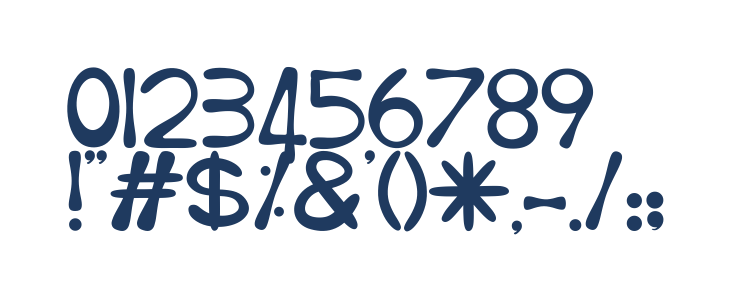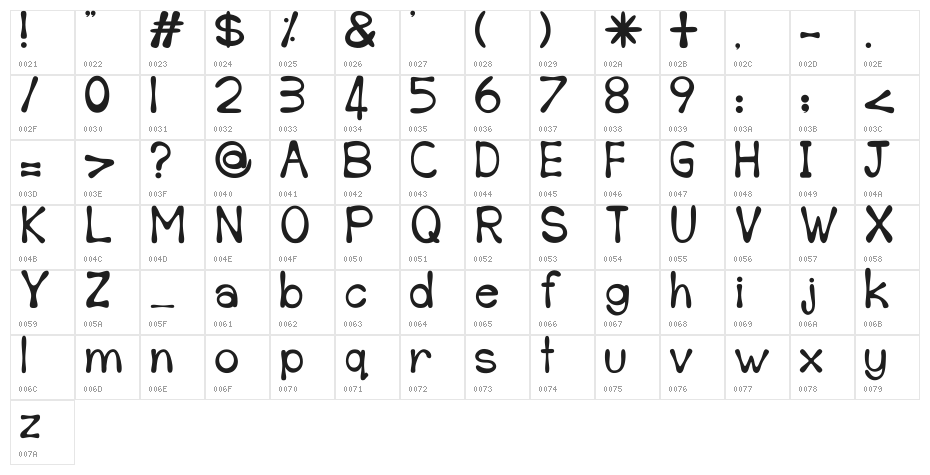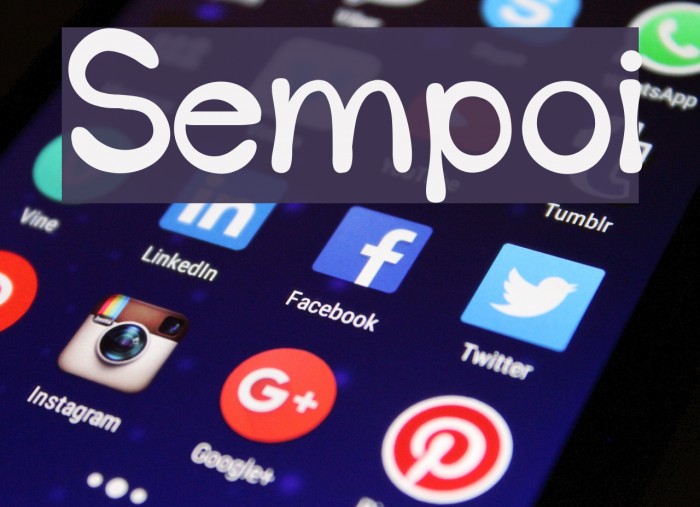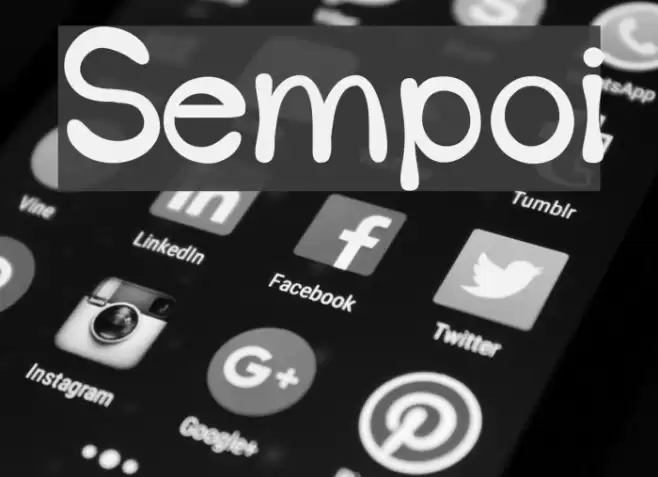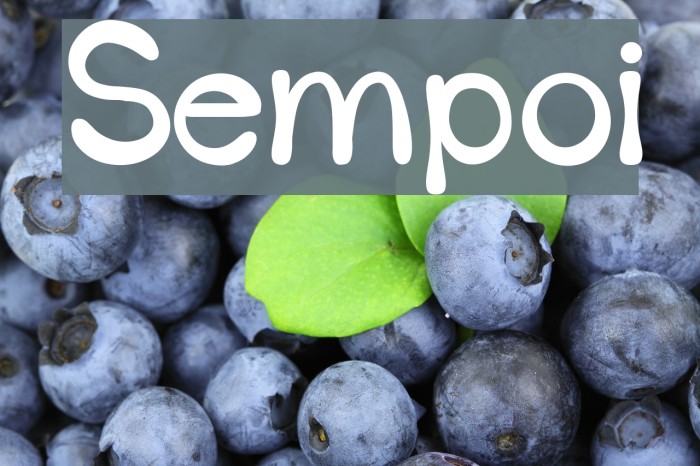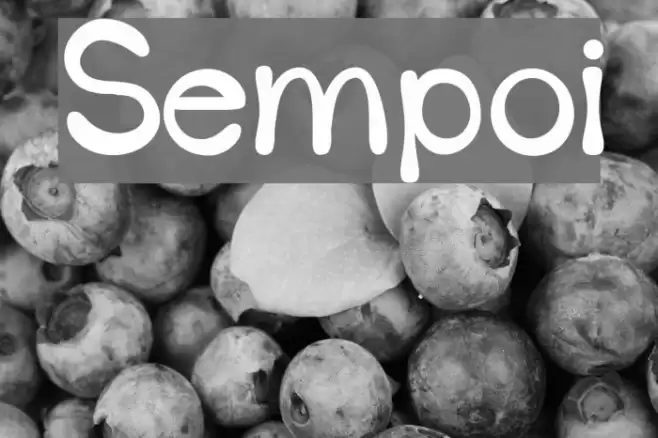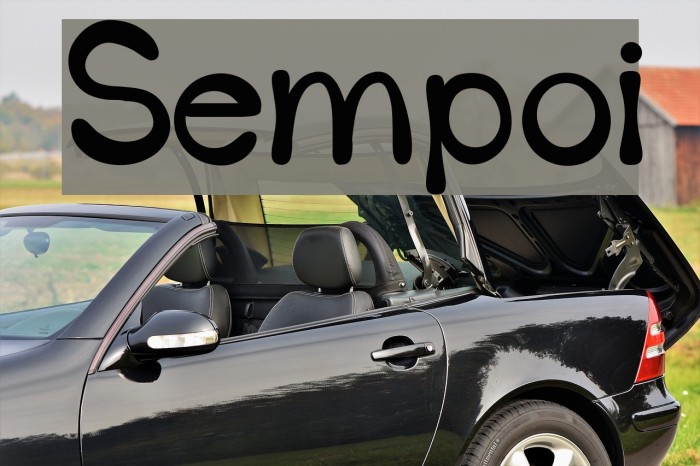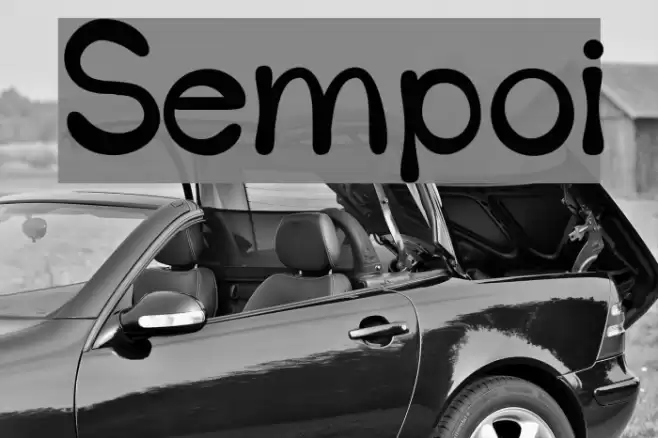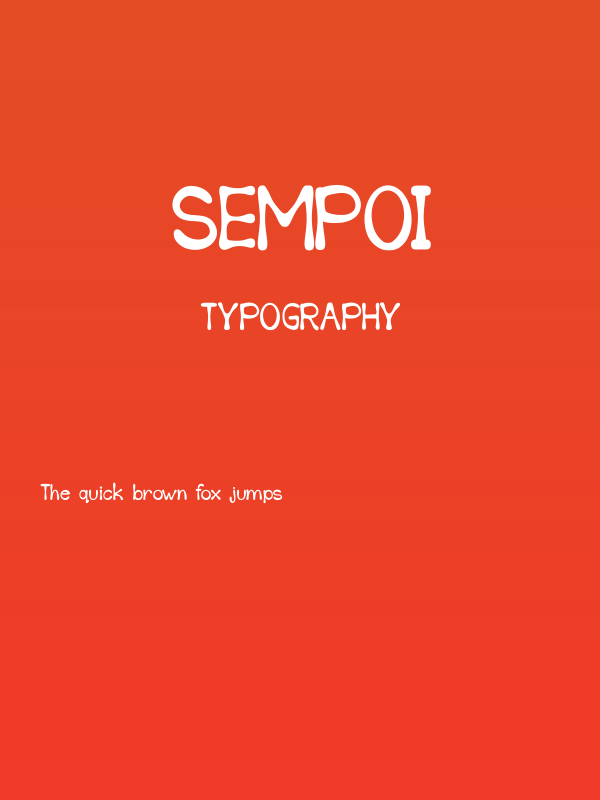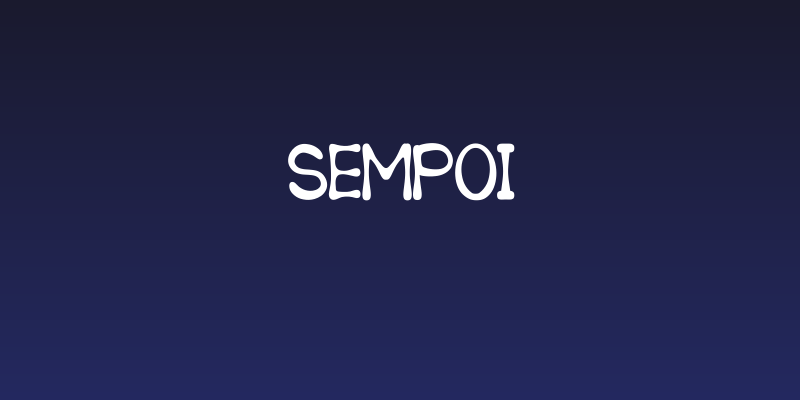
Sempoi Font
Sempoi Description
This playful and whimsical font features rounded, irregular shapes that give it a hand-drawn appearance. The characters are bold and slightly uneven, adding a sense of fun and informality. The uppercase and lowercase letters maintain a consistent style, with the lowercase letters being slightly more compact. The numbers and special characters follow the same playful design, making them easily recognizable. This font's unique style makes it ideal for projects that aim to convey a sense of creativity and lightheartedness.